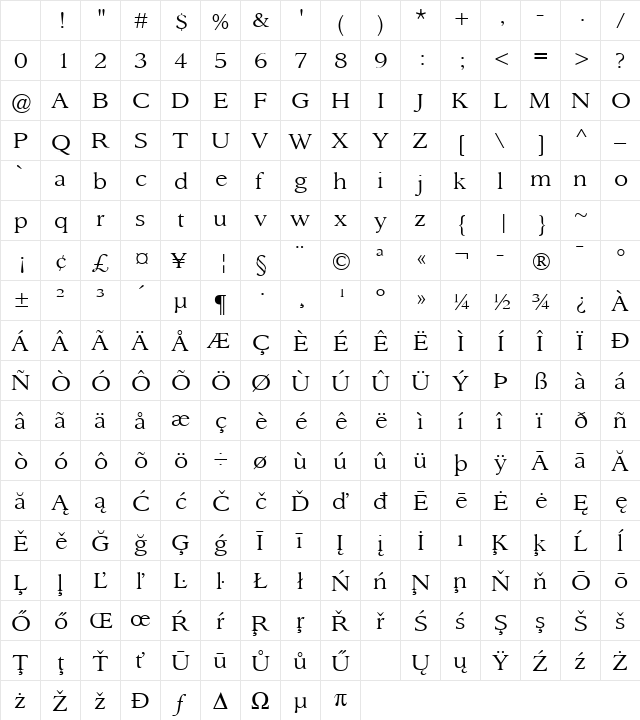
Complete Sanford Book glyph index. Displaying only characters natively supported by Sanford Book font.
Sanford is a composed and adaptable typeface that performs quietly and consistently across a wide range of design contexts.